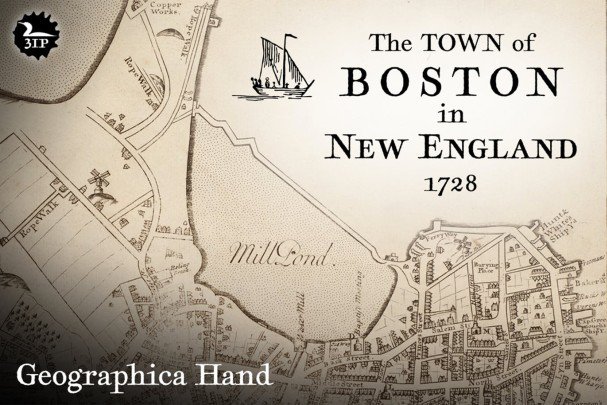
Geographica Hand Font
The Geographica Hand Font is a script font that is extremely charming, primarily due to its fantastic appearance. Take a look at the images and you will truly appreciate its beauty.